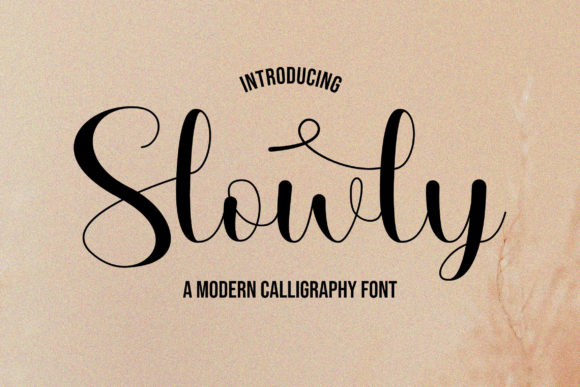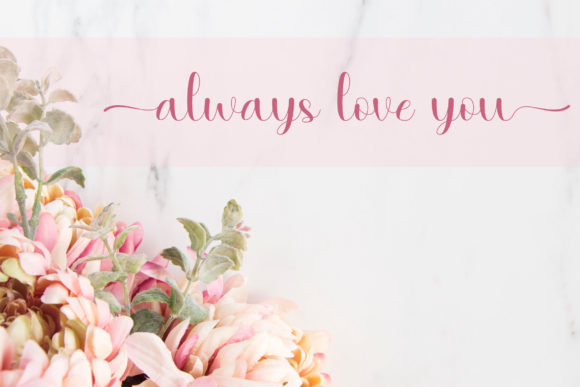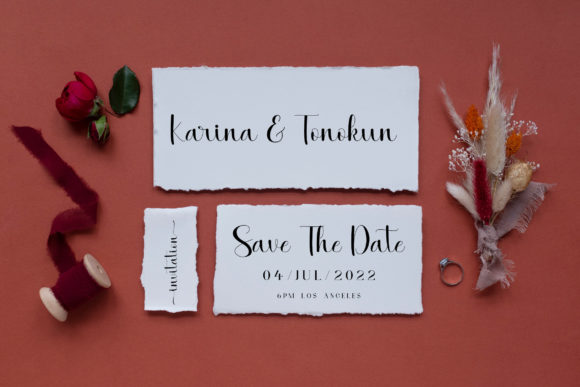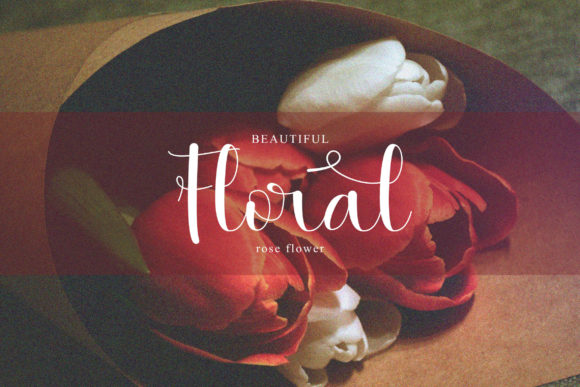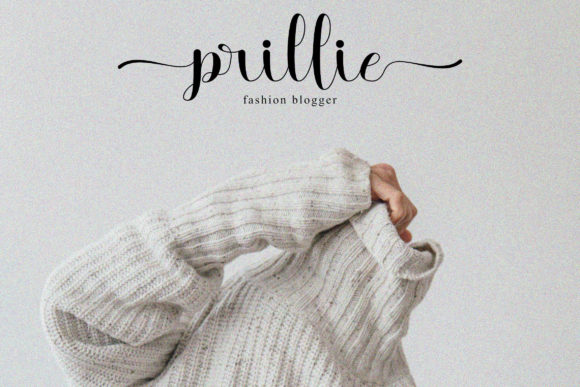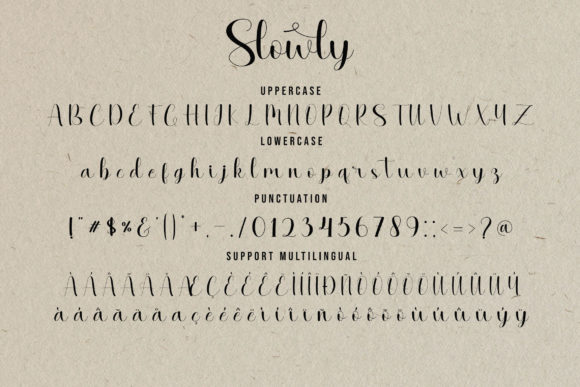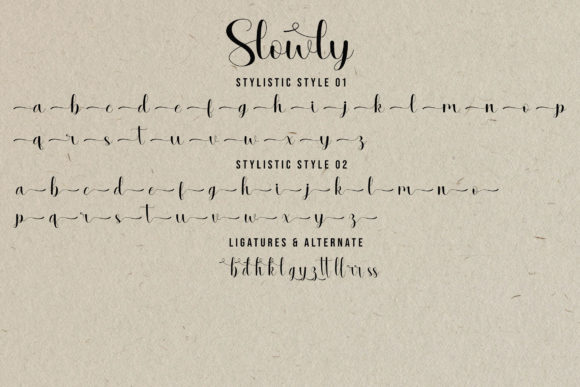
Slowly Font
About Slowly Font
Slowly is a stylish and beautiful script font. It is PUA encoded which means you can access all of the glyphs and swashes with ease!
Add it to cards, invites or various other creations that require a neat touch.